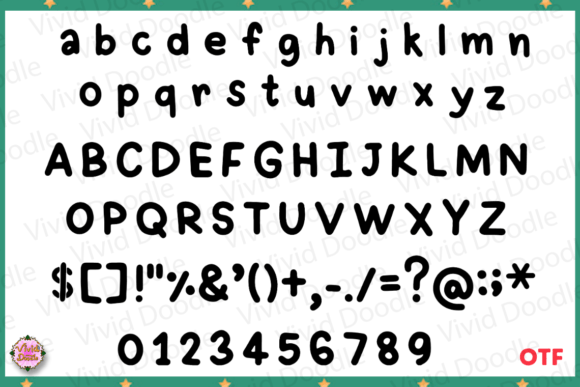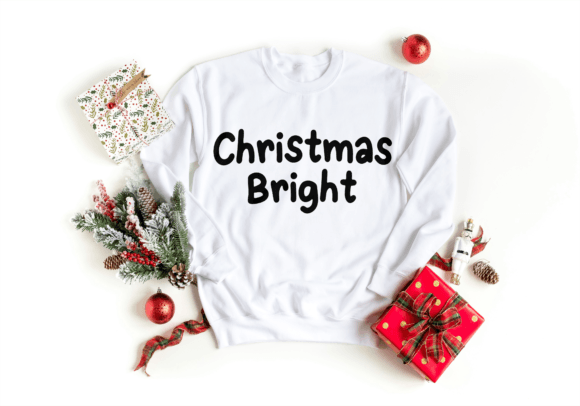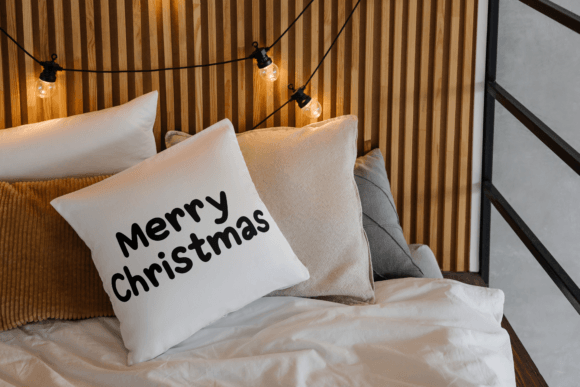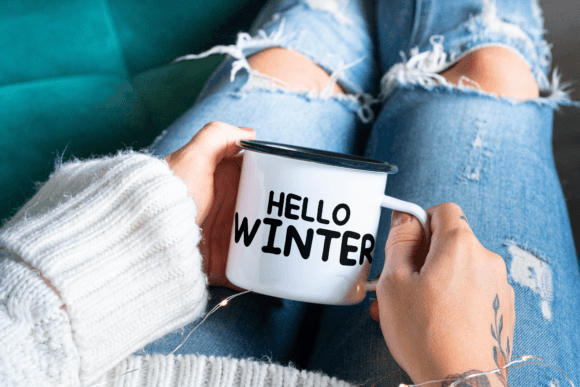
Introducing Christmas Bright Font: Spread Festive Cheer with this Hand-Lettered Holiday Delight
The holiday season is upon us, and what better way to get into the spirit than with a unique and festive font that captures the warmth and joy of this special time of year? We’re thrilled to introduce the Christmas Bright Font, a newly crafted, hand-lettered font designed to bring a touch of merriment to your creations. Whether you’re a designer, crafter, or simply someone who loves the magic of the holiday season, this enchanting font is sure to become your new go-to.
A Font that Radiates Festive Cheer
Christmas Bright Font is more than just a holiday-themed font – it’s an experience. With its carefully crafted, hand-lettered design, this font exudes the warmth and festivity of the season. Its unique and playful style is perfect for adding a touch of personality to your projects, from holiday cards and invitations to social media graphics and website headers. The font’s adaptability and versatility make it an excellent choice for a wide range of applications, ensuring that your creations stand out from the crowd.
What Makes Christmas Bright Font So Special?
- Hand-lettered with love: Each letter has been carefully crafted by hand, giving the font a unique and personal touch that’s sure to delight.
- Festive and fun: The font’s playful design is guaranteed to put a smile on your face and get you in the holiday spirit.
- Adaptable and versatile: Use Christmas Bright Font for everything from holiday projects to everyday designs – its enchanting style is sure to elevate any endeavor.
- Exclusive and unique: This font is a one-of-a-kind creation, ensuring that your designs stand out from the crowd.
Whether you’re a professional designer or a crafter looking for a special touch, Christmas Bright Font is the perfect addition to your toolkit. The font’s flexibility and charm make it an excellent choice for a wide range of projects, including:
- Holiday cards and invitations: Add a personal touch to your festive correspondence with this delightful font.
- Social media graphics: Spread holiday cheer on your social media channels with eye-catching graphics featuring Christmas Bright Font.
- Website headers and banners: Give your website a festive makeover with this enchanting font.
- Crafting projects: Use Christmas Bright Font to add a touch of personality to your handmade crafts, from gift tags to DIY decorations.
Get Ready to Enhance Your Projects